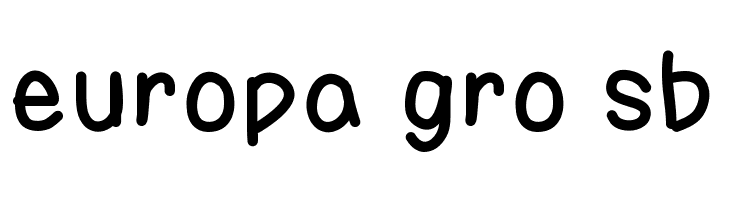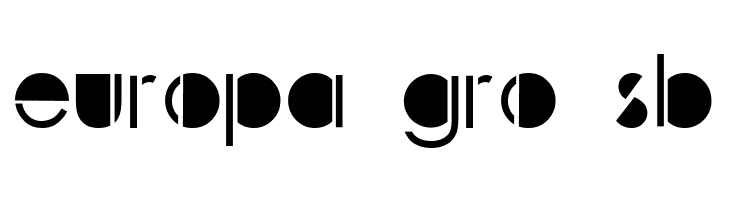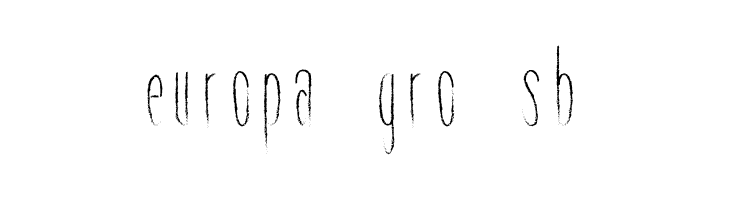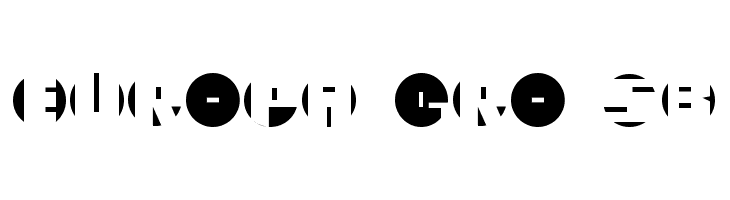
A hand-drawn, textured font with a sketch-like, organic appearance.
An abstract, geometric font with fragmented characters and a modern art style.
A playful, hand-drawn font with a slanted, whimsical style.
A playful, hand-drawn font with rounded edges and a whimsical style.
A bold, geometric font with angular and dynamic character designs.